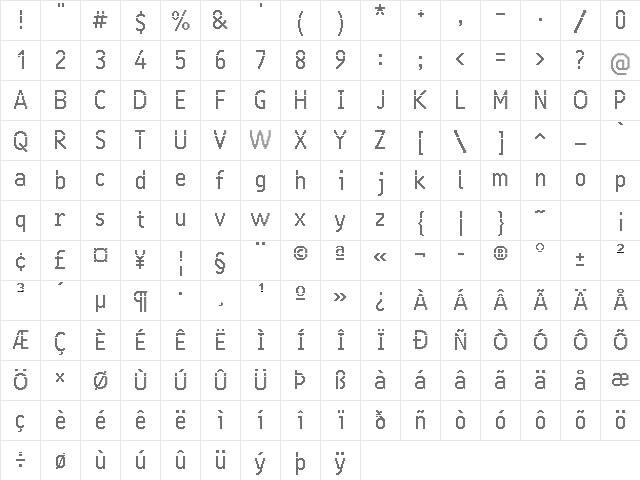
24 LED Regular
| Designer | Peter Wiegel |
Design Context for 24 LED Typeface
24 LED takes a measured approach to typography — its balanced proportions and neutral character make it a reliable workhorse for both digital and print work.